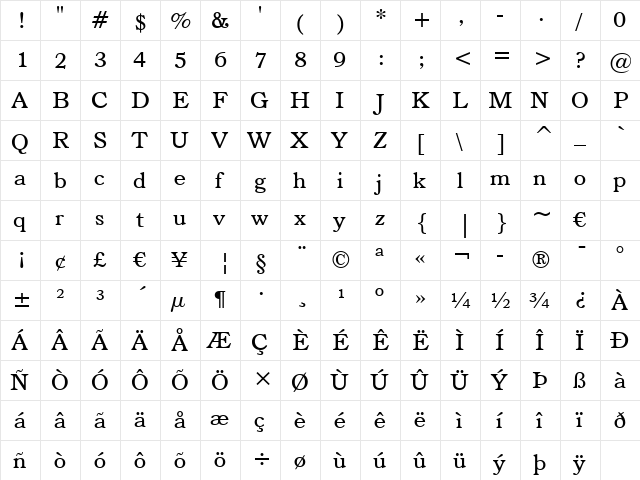
Bookman BT Roman
Design Context for Bookman BT Typeface
Bookman BT offers clean, dependable letterforms without strong stylistic allegiance, making it a practical choice for designers who need flexibility.